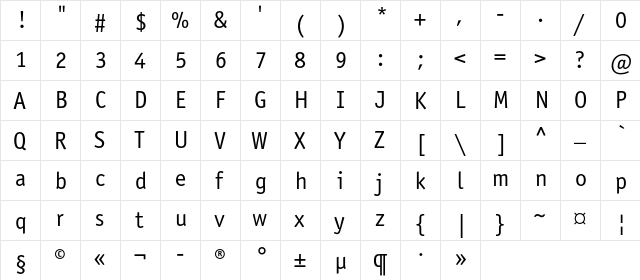
OfficinaSansC Regular
Design Context for OfficinaSansC Typeface
OfficinaSansC offers clean, dependable letterforms without strong stylistic allegiance, making it a practical choice for designers who need flexibility.